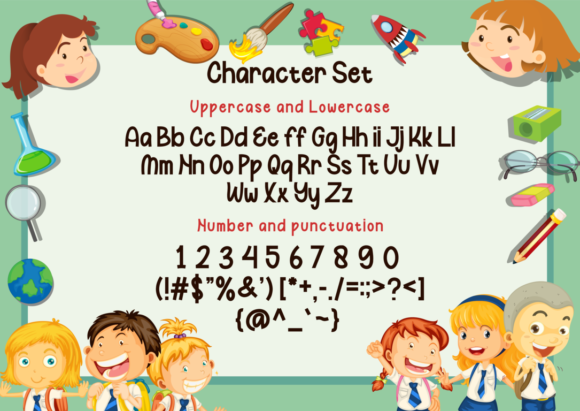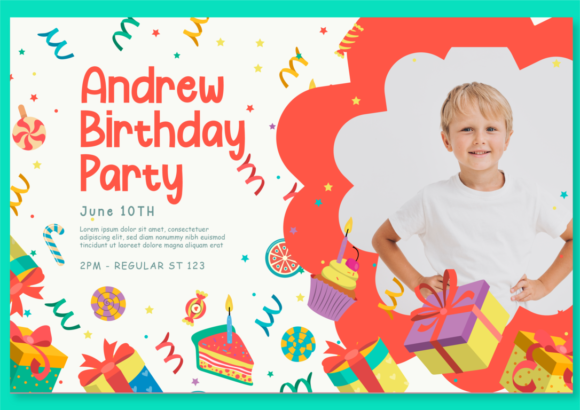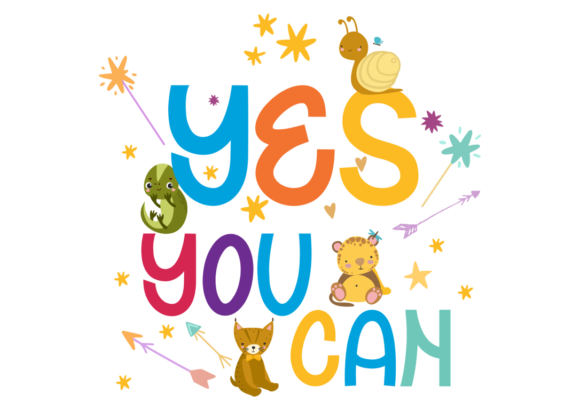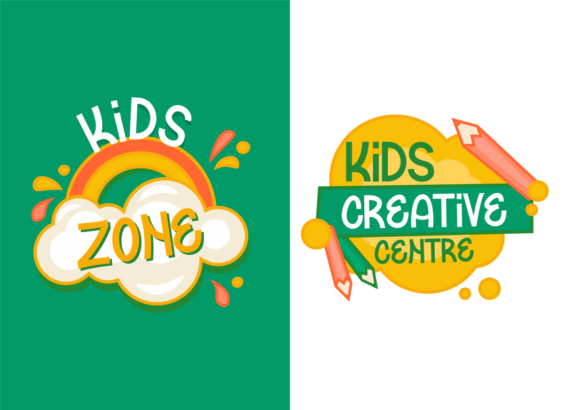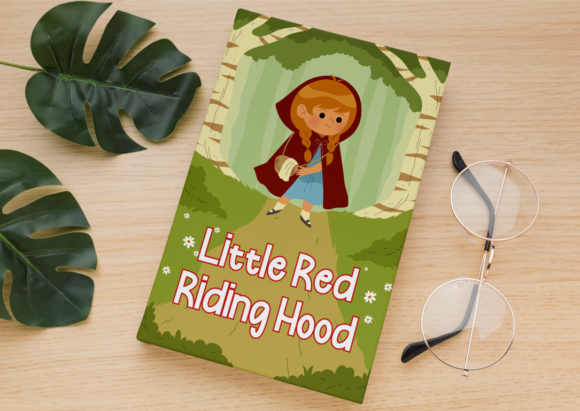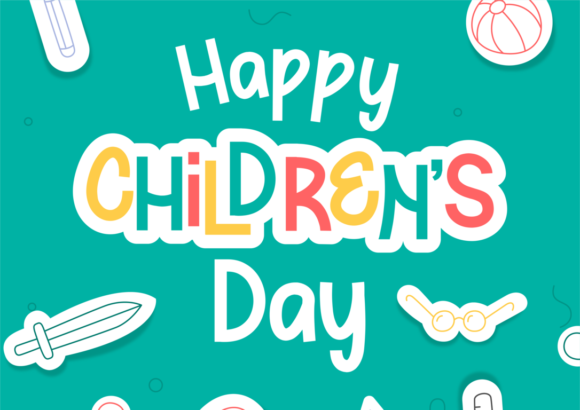
Introduction to King Eider Font
King Eider is a playful and cool display font.
It embodies playfulness and authenticity and is the perfect choice for any children activity or school project .
Key Features of King Eider Font